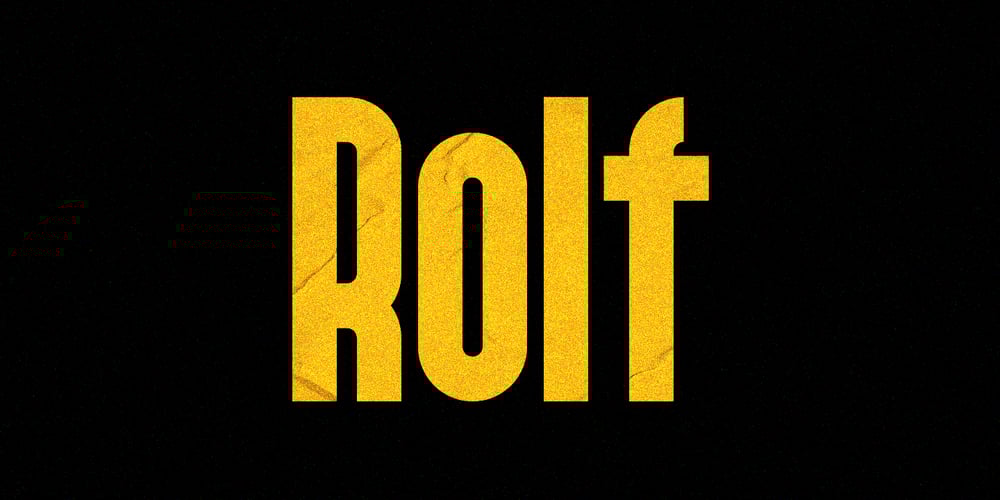
Rolf Font Family was designed by Candi Erwanto and published by MysticalType. Rolf contains 14 styles and family package options. Rolf is a modern font of condensed typeface, Rolf is a narrow neutral geometric font designed for headlines and posters. The Italic weights are designed with high-quality compensation for all circles and strokes, made to combine rotalik techniques and details on each slope. Rolf has expanded Latin coverage to be ideal for Western, Central and Eastern European languages.